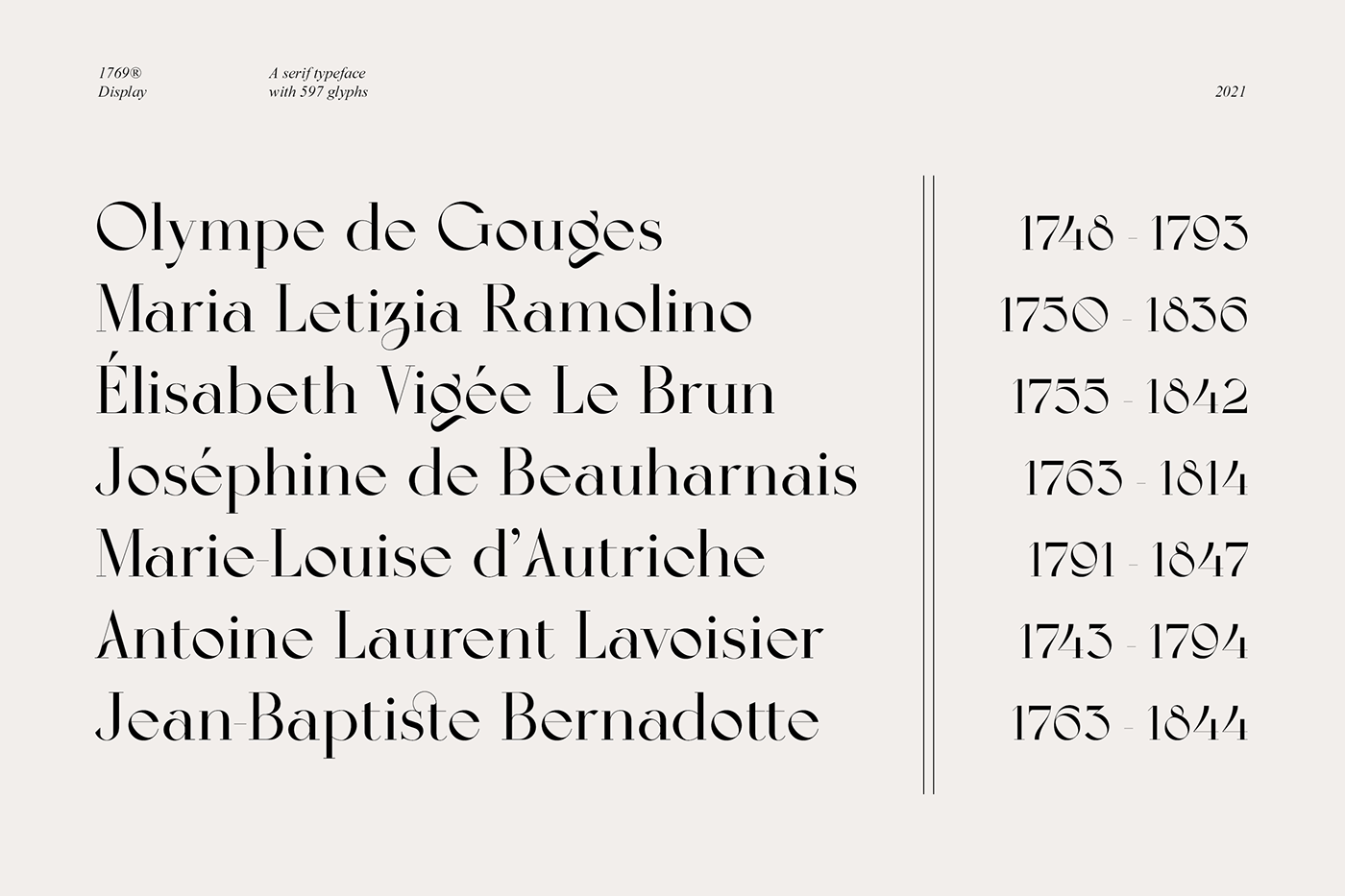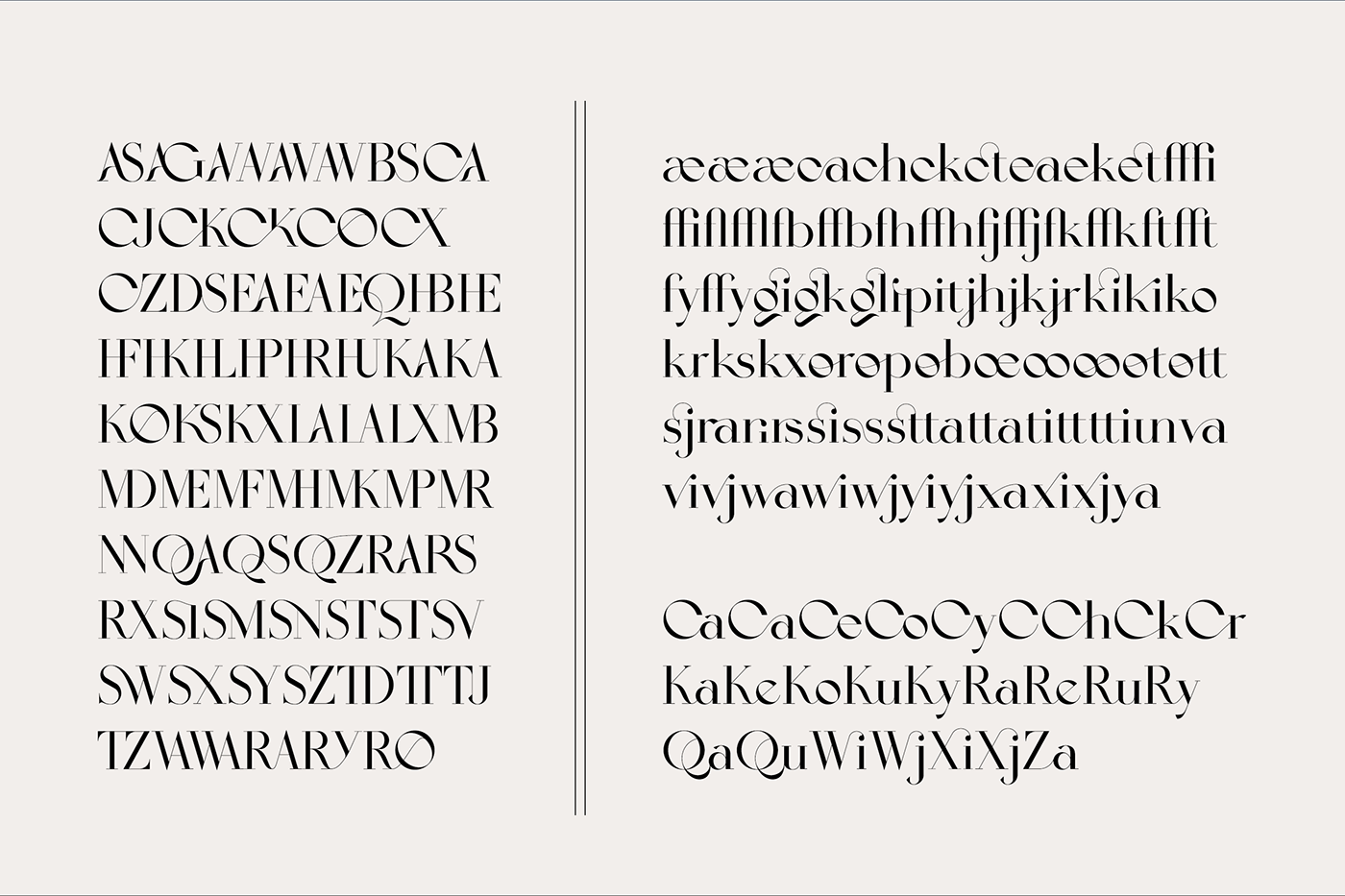
1769® Display is an elegant and modern serif typeface inspired by the history of France and more particularly the Romantic movement (1700s and 1800s). The roundness of its characters and its numerous ligatures reflect the grace, refinement and sensitivity that were omnipresent during the 18th century. Its name refers to the birth of Napoleon Bonaparte, the fascinating or revolting emperor, the emblematic figure of this period. 1769® Display is compatible with 93 languages and contains 597 glyphs, including several alternatives and ligatures.